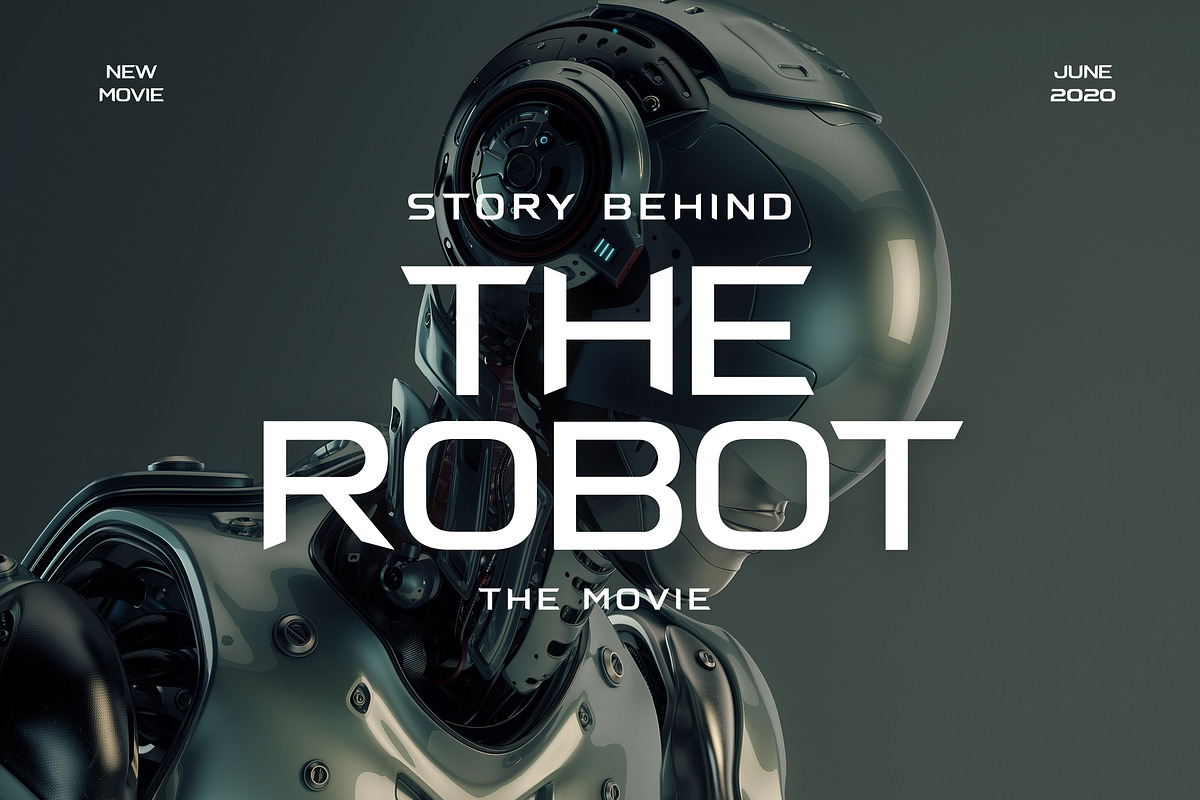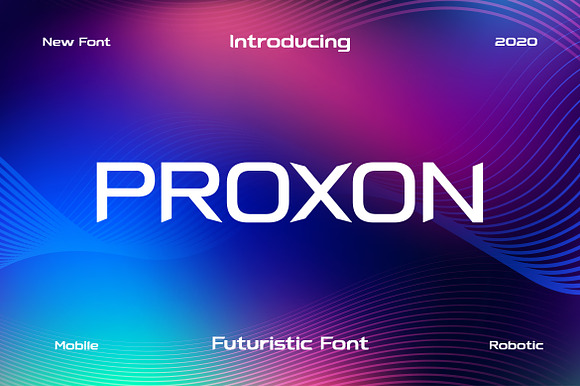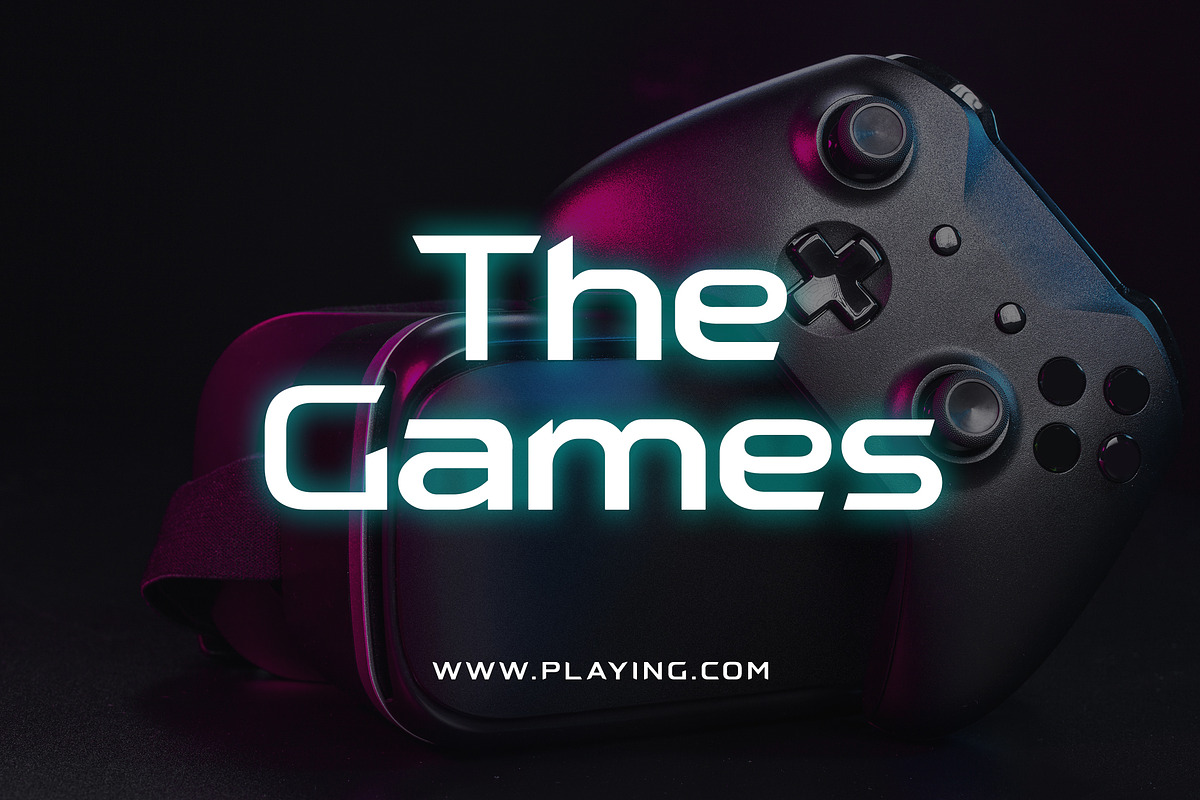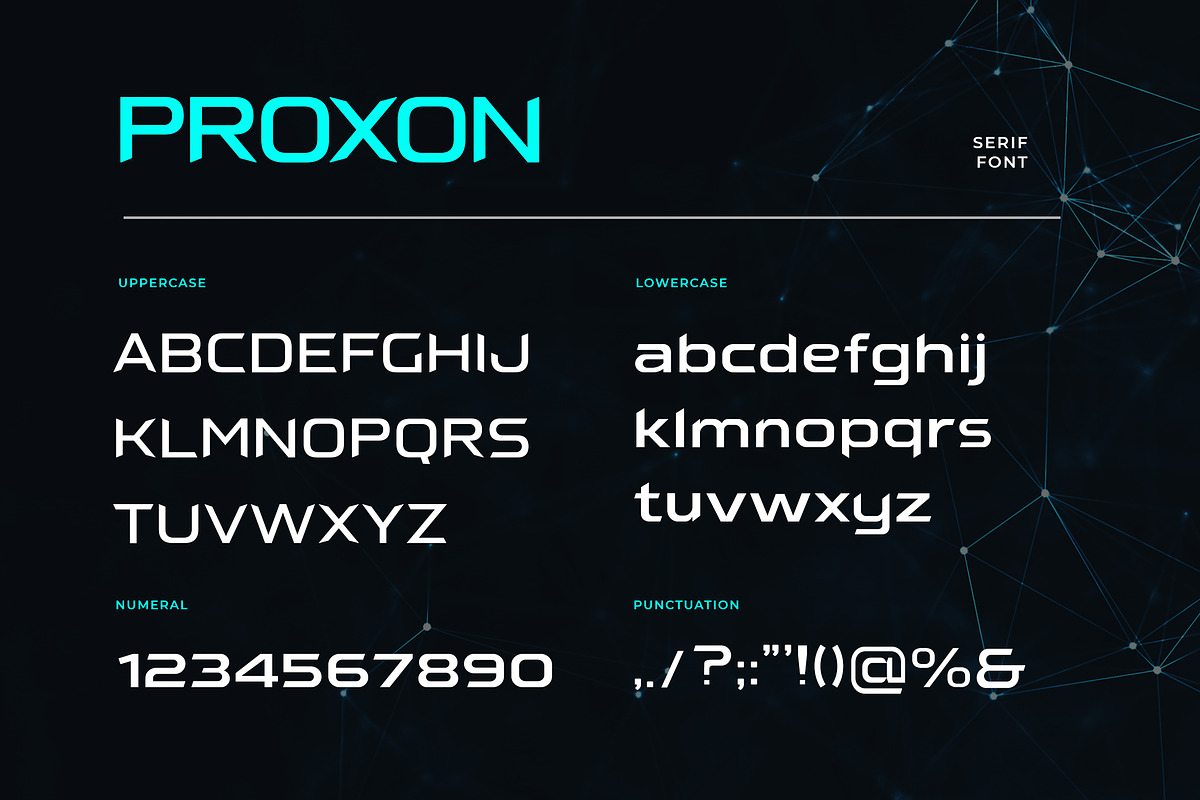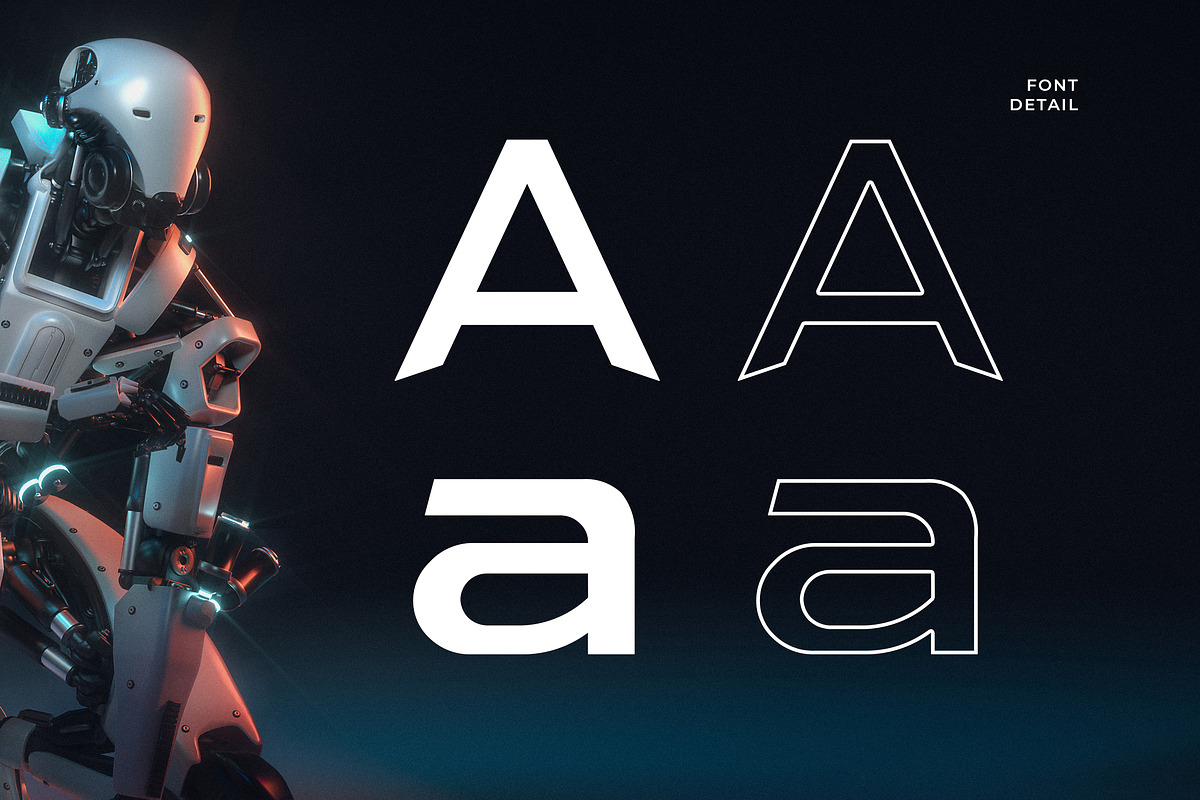
Proxon Sans Serif Modern Font
Proxon modern and futuristic Sans Serif font, inspired by sci-fi and technology, so we designed the font with a modern feel . Very playful and science-friendly well suited for branding, magazine, marketing design, technology, sci-fi design, bag, headlines, and display design pieces as well as short length text blocks.
Proxon Sans Serif Modern Font by UICreative fits naturally into Branding, posters, packaging, typography.